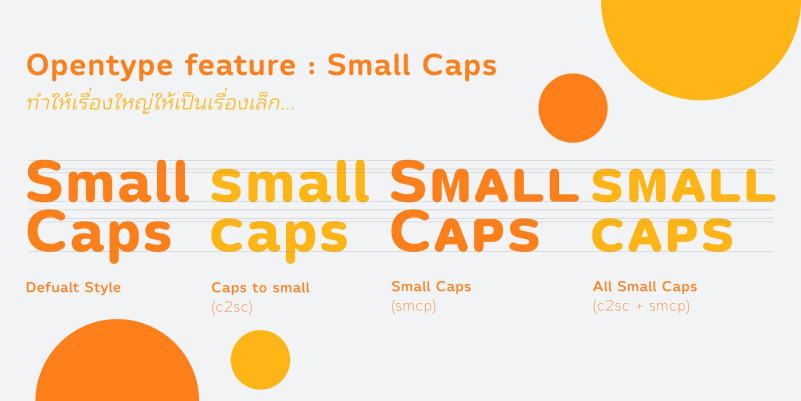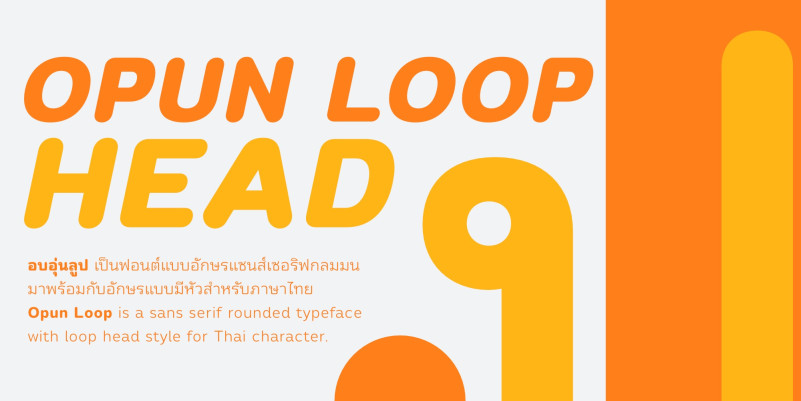
Opun Loop Font
Opun Loop Font is a sans serif rounded typeface with loop head style for Thai character. Semi-formal, Softly, Lovely feel. Suitable for headline and text body. Comes with 9 weights and italics of each weight total 18 styles, and there are features such as Small Caps and many features available for you. Support multi-languages.